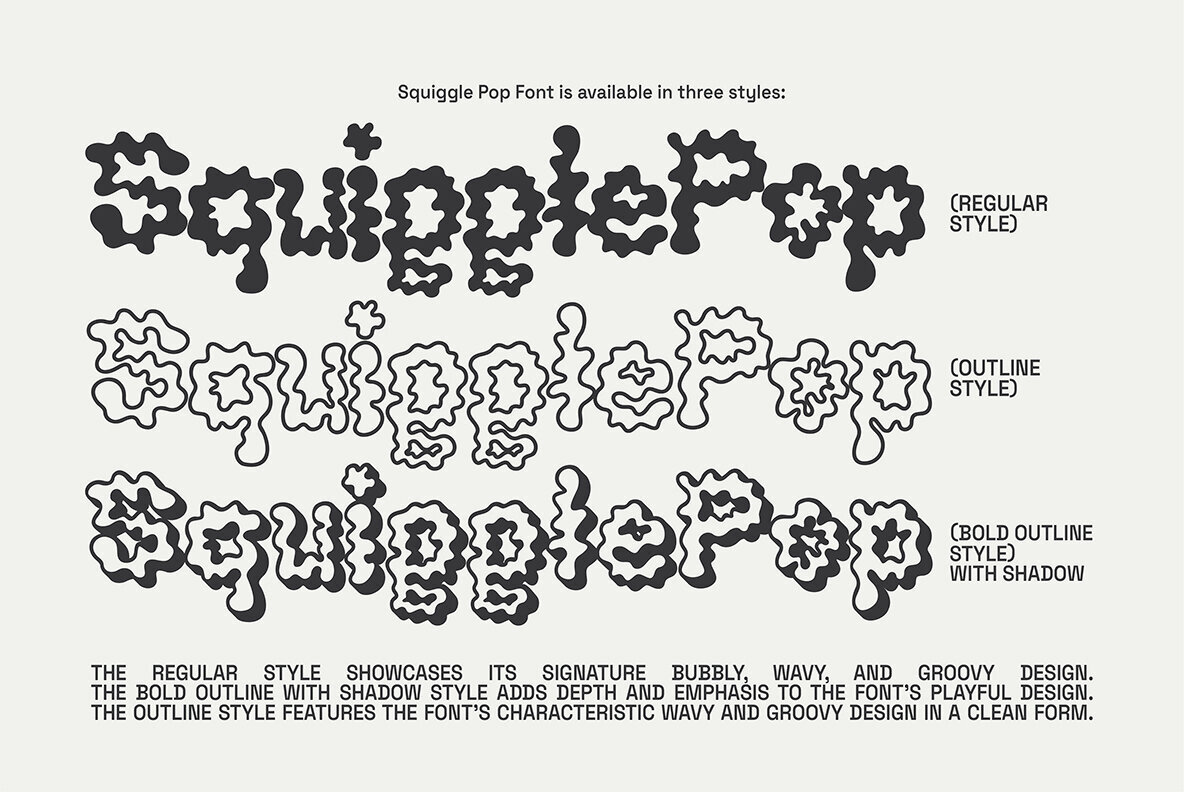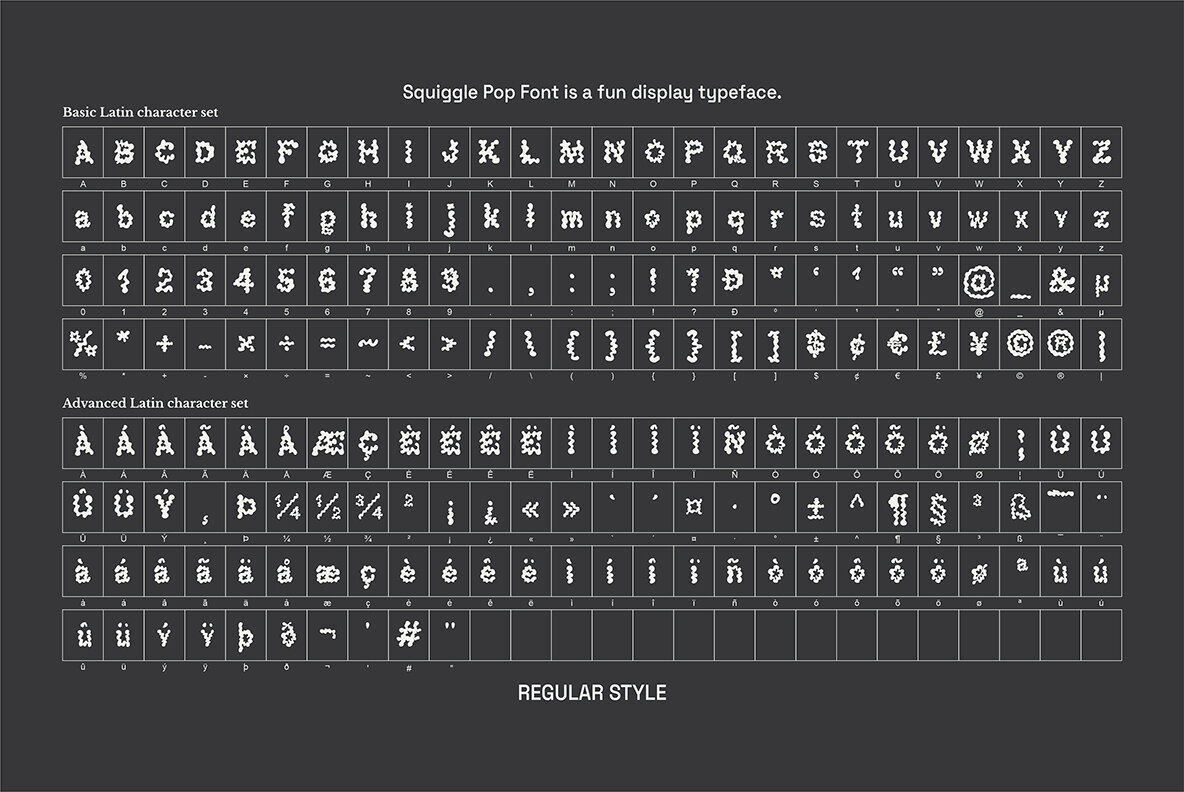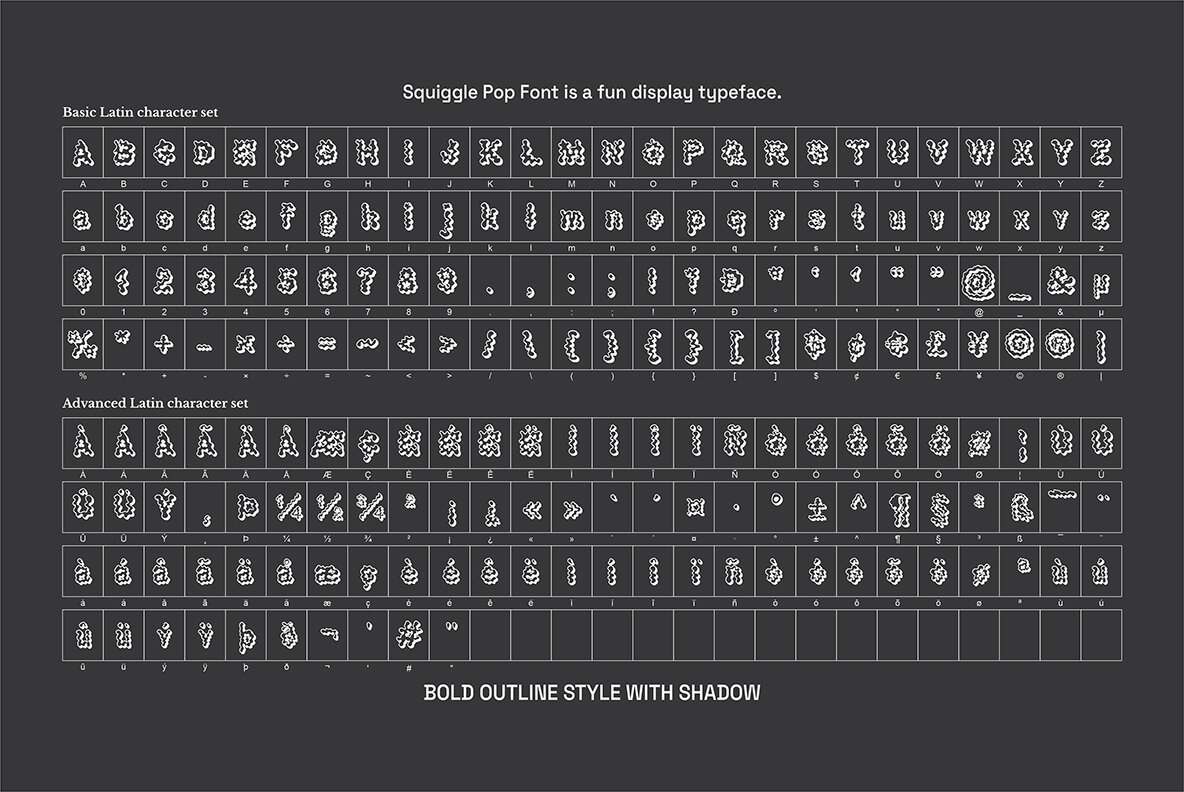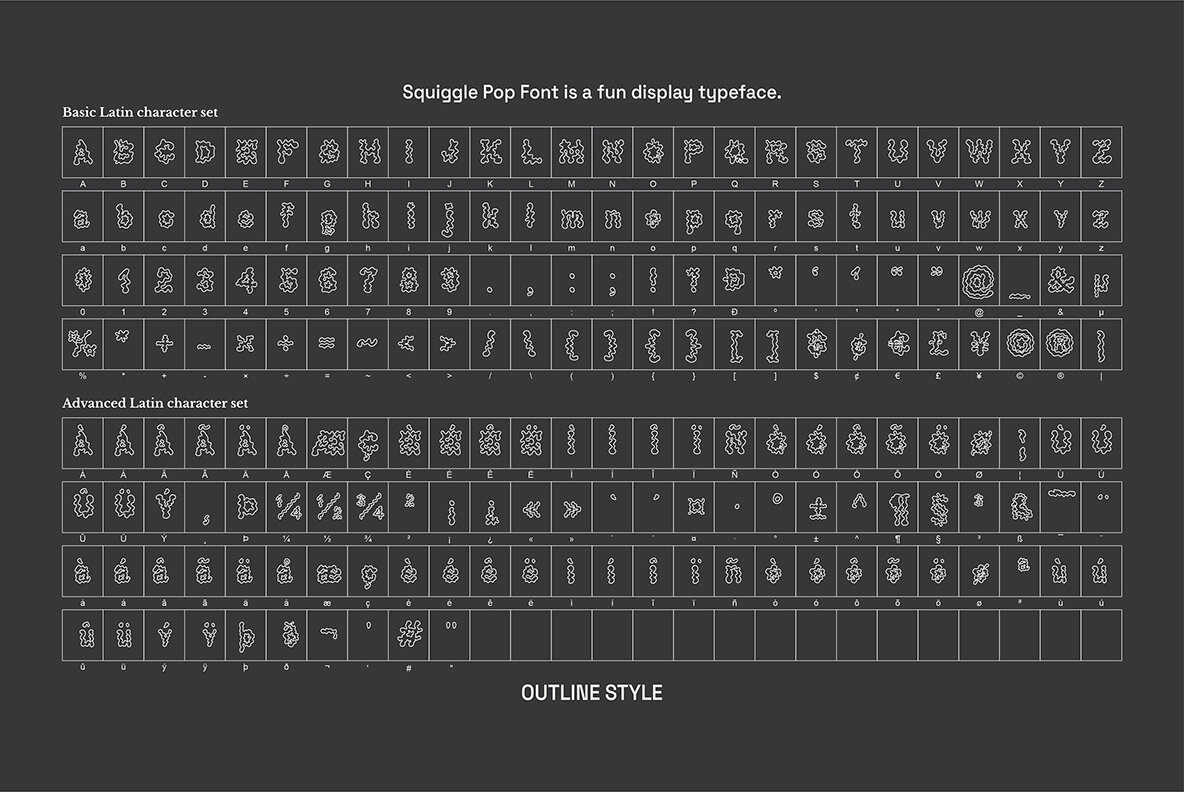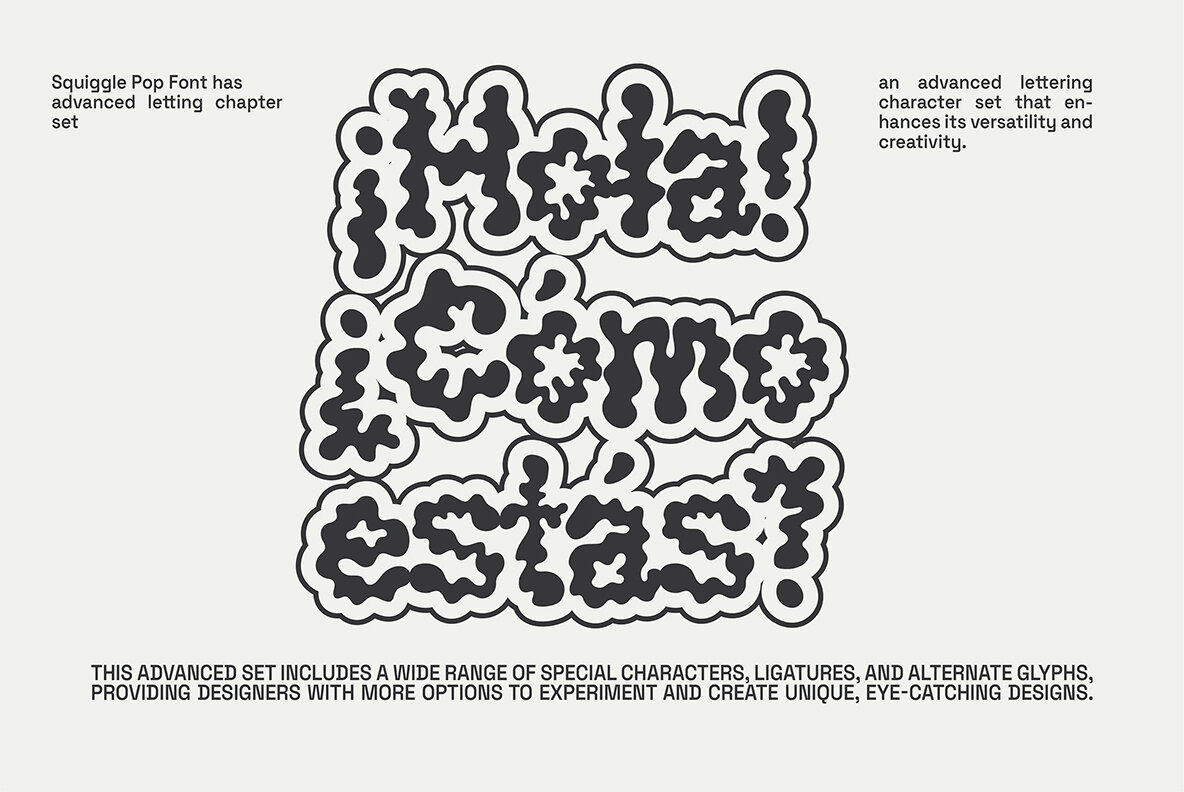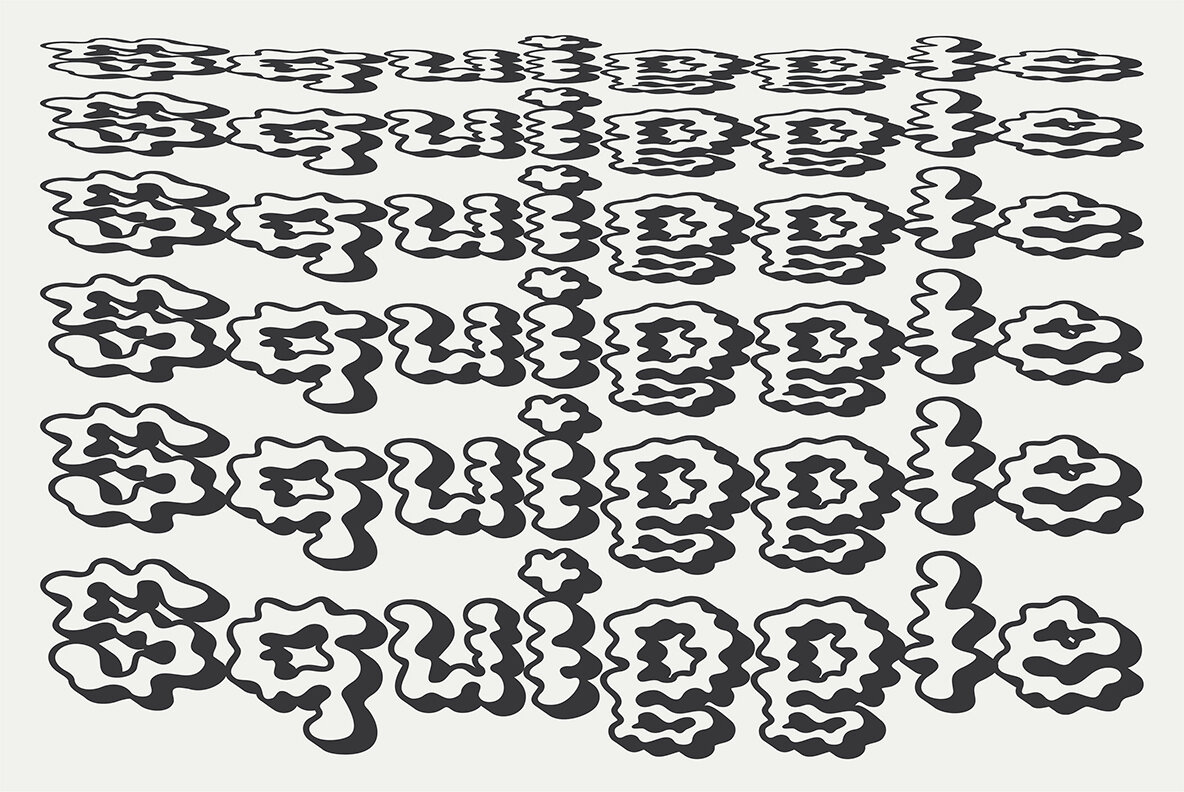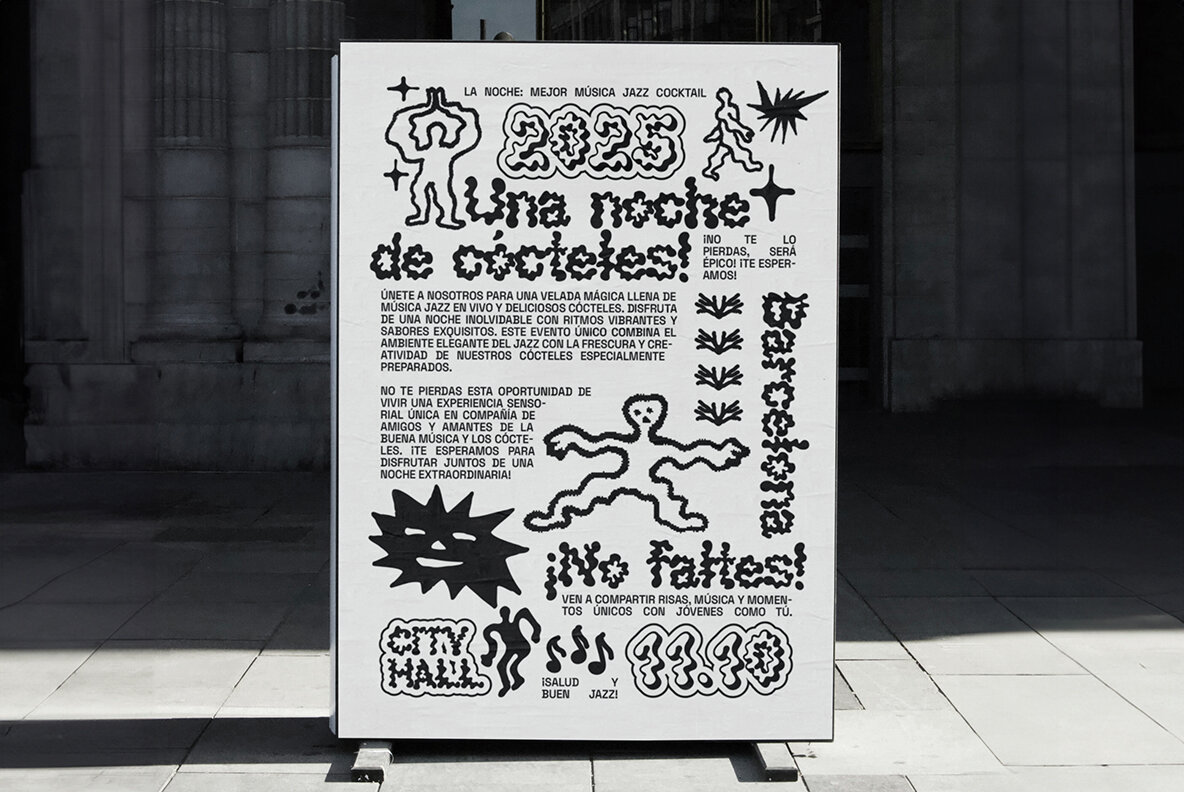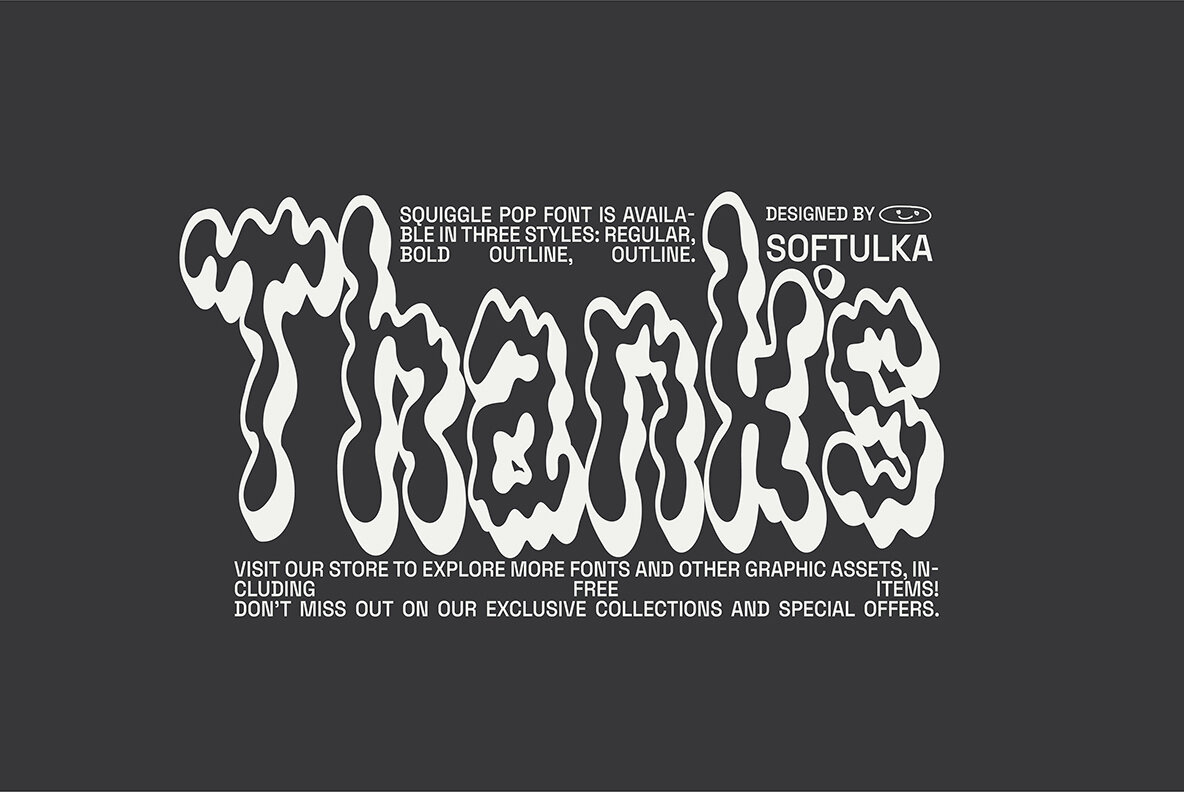
Squiggle Pop Font
Squiggle Pop is a playful display typeface featuring a bubbly, wavy, and groovy design. Perfect for adding a lively touch to your projects, this versatile font offers three distinct styles: regular, bold outline with shadow, and outline. Its decorative nature makes it ideal for bold titles, festival posters, graphic elements on bright T-shirts or hoodies, and even as backgrounds. Squiggle Pop's unique design experiments with spacing and additional graphic elements, encouraging you to think outside the box with your bold, modern ideas.
The font's quirky and unconventional aesthetic suits various creative endeavors. It's designed to stand out and bring a sense of whimsy to your work. Whether you're looking to create eye-catching titles or background patterns, Squiggle Pop is ready to make a statement with its distinct styles.